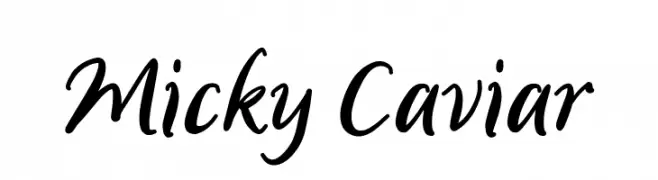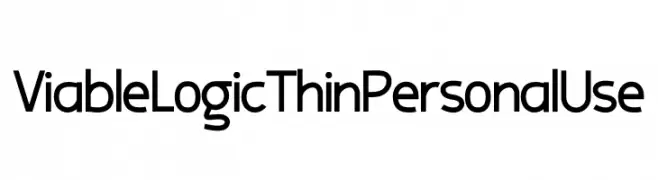
( Grant Milne - grantmilne.com/ )
A modern, elegant font with high contrast and thin strokes.
( Matt Bruinooge )
A sketch-like, hand-drawn font with dynamic, textured strokes.
( Noschey! )
A playful and whimsical font with rounded, elongated letterforms.
( Sholeha Anata )
A lively and elegant script font with flowing, cursive letterforms.
( Sylvia Miller - sylviaanne.tumblr.com/ )
A bold, playful handwritten font with fluid strokes and a lively style.
( aldedesign - Alde Saputro - creativemarket.com/aldedesign?u=aldedesign )
An elegant script font with flowing lines and intricate swashes.
( dharmas - Jamaludin Ahmad - creativemarket.com/dharmas?u=dharmas )
A delicate, handwritten font with thin, flowing lines and an elegant style.
( Giedi Prime )
A geometric, abstract font with a futuristic and mechanical style.
( Intellecta Design - new.myfonts.com/search/intellecta/fonts/?sort=sales?refby=paulow )
A bold, angular serif font with a dramatic and modern flair.
A dynamic, forward-leaning font with bold, angular characters.
( Fonts by Marc Lohner )
A bold, rounded font with a modern and friendly style.
An elegant script font with intricate swirls and decorative flourishes.
( Fonts by Hanoded )
A playful, hand-drawn font with a bold and whimsical style.
An elegant cursive script font with flowing, connected letters.
A modern, geometric sans-serif font with a clean and professional look.
An elegant, high-contrast script font with flowing, cursive characters.
A mirrored, split-design font with bold, artistic flair.
A bold, serif font with a unique horizontal line through each character.
A classic serif font with sharp serifs and clean lines, exuding elegance and sophistication.
An elegant, flowing script font with a sophisticated and graceful appearance.
An elegant script font with flowing, interconnected letters and a calligraphic style.
A bold, italic serif font with strong, dynamic letterforms.
A bold, serif font with a strong, authoritative presence.